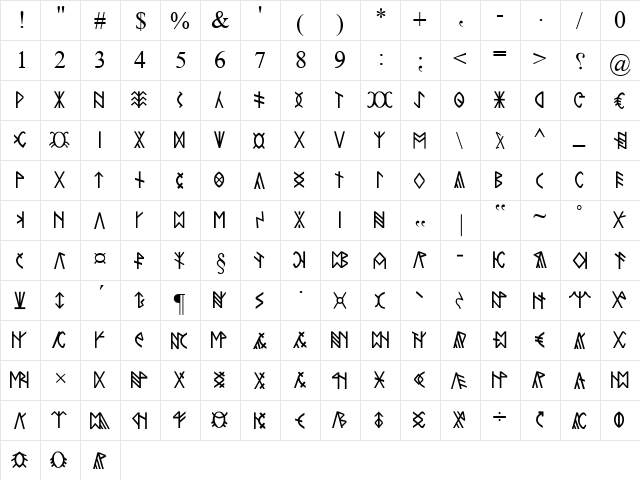
Rovas Kiterjesztett Regular
Design Context for Rovas Kiterjesztett Typeface
Rovas Kiterjesztett takes a measured approach to typography — its balanced proportions and neutral character make it a reliable workhorse for both digital and print work.